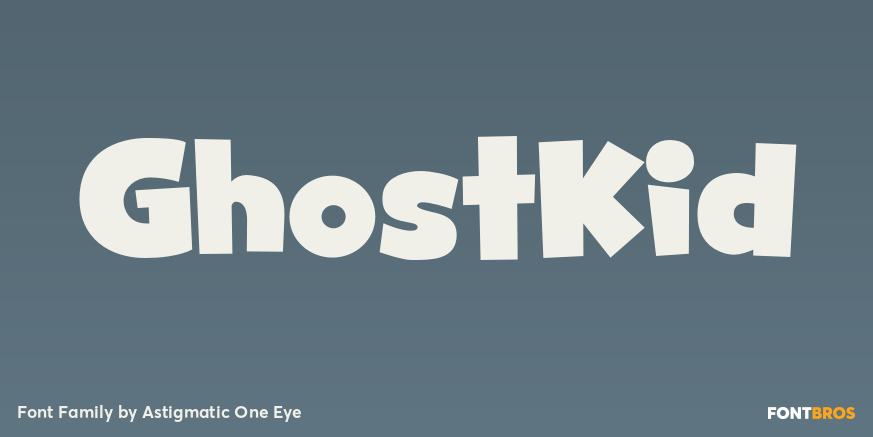
HomeFont BrosRetro (1936-1965)GhostKid Retro (1936-1965)Sans SerifWacky GhostKid FacebookTwitterPinterestWhatsApp 1 of 1 About GhostKid A graffiti inspired comic font.  DOWNLOAD NOW 83 0 People also explored Fairytales Script Font Happy Alphabet Font Font Coconut Vector Font Zloob Font AL Quickly Signature Font Equalizer Script Jasmine Font Afilia Font Formentera Sandstone Passage | Beer Mockup Aceituna Loventtine Font Devllin Font Tags350SGhostKid Font Previous articleMelon MojitoNext articleAverta CY LEAVE A REPLY Cancel reply Comment: Please enter your comment! Name:* Please enter your name here Email:* You have entered an incorrect email address! Please enter your email address here Website: Save my name, email, and website in this browser for the next time I comment. Unlock Endless Creativity with the FREE September Clipart Huge Bundle (Valued at $700!) Personal Use Free Avatarock Personal Use Free Read more Love Heart Personal Use Free Read more Airmole Personal Use Free Read more Dimensional Look71 Personal Use Free Read more BLOG To increase your work productivity, choose the most readable fonts. In today's fast-paced work environment, where digital communication and information consumption are integral to our daily routines, the choice of fonts can significantly impact... Exploring Font Trends The 10 Best Handwriting Fonts to Add Personality to Your Designs Using Fonts in Digital Marketing: Tips to Strengthen Your Brand Identity